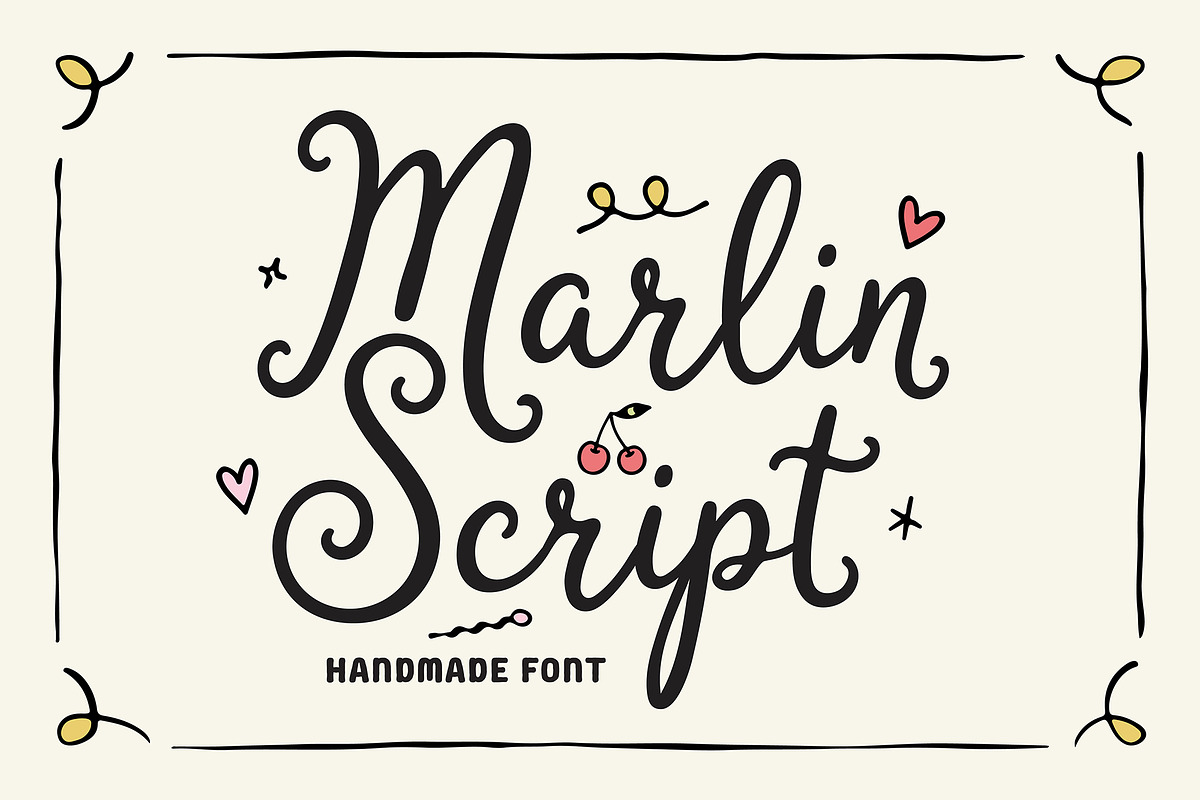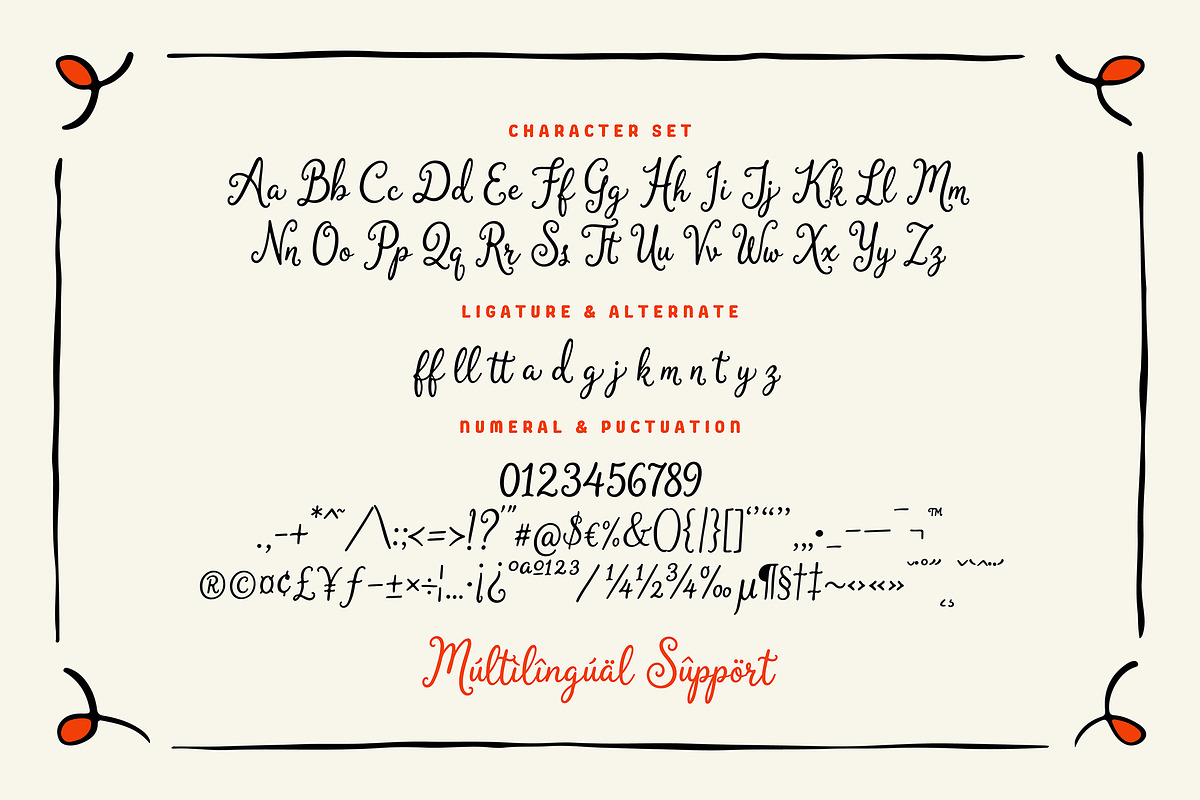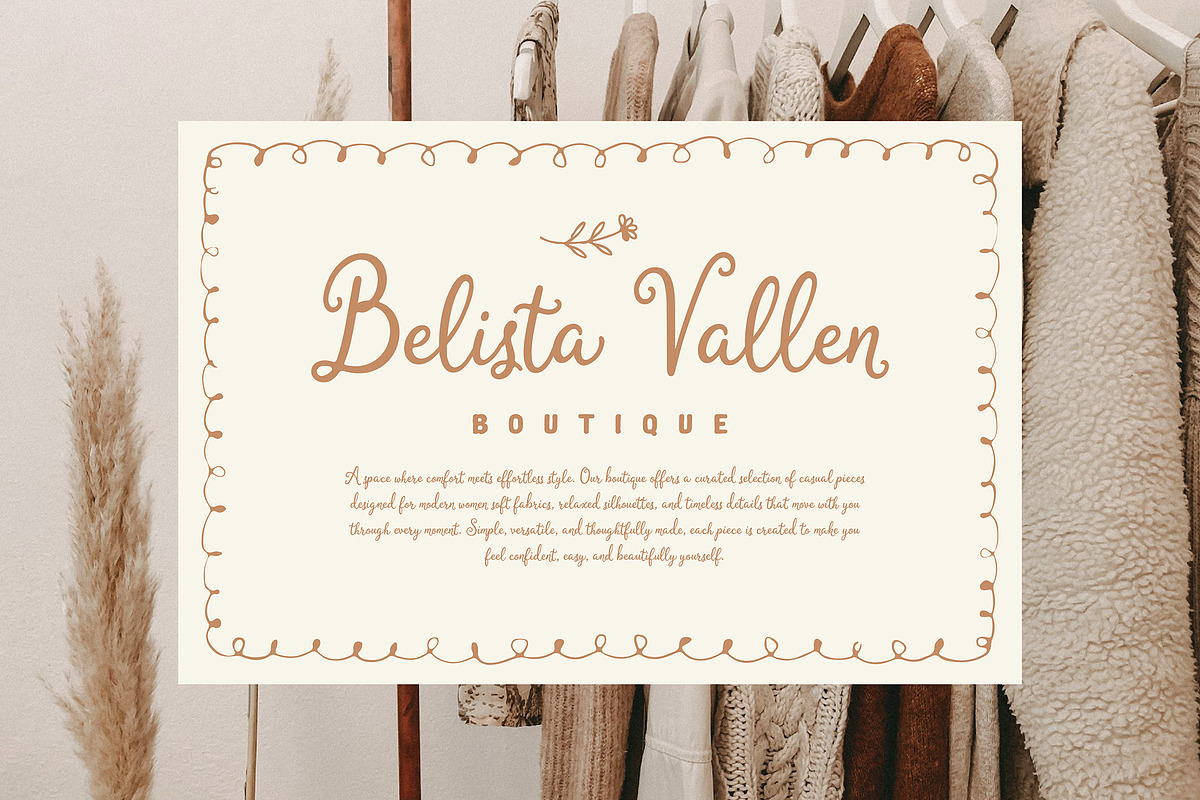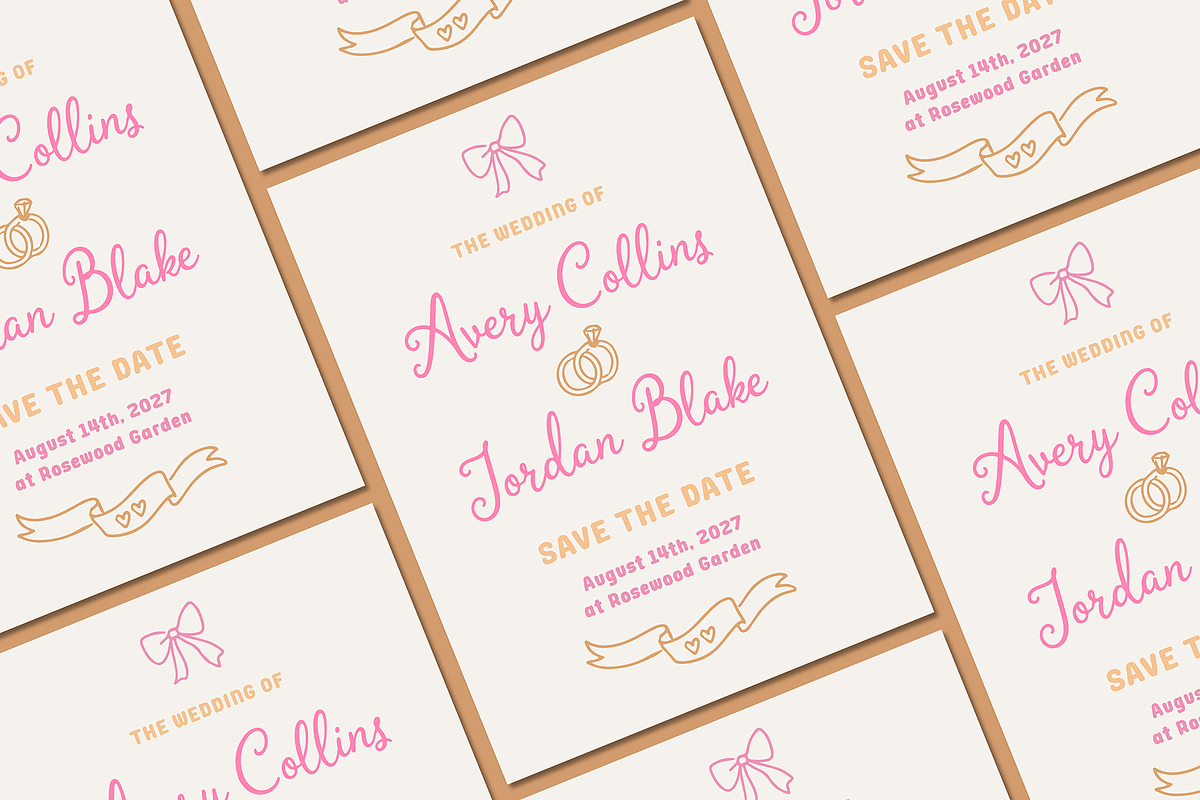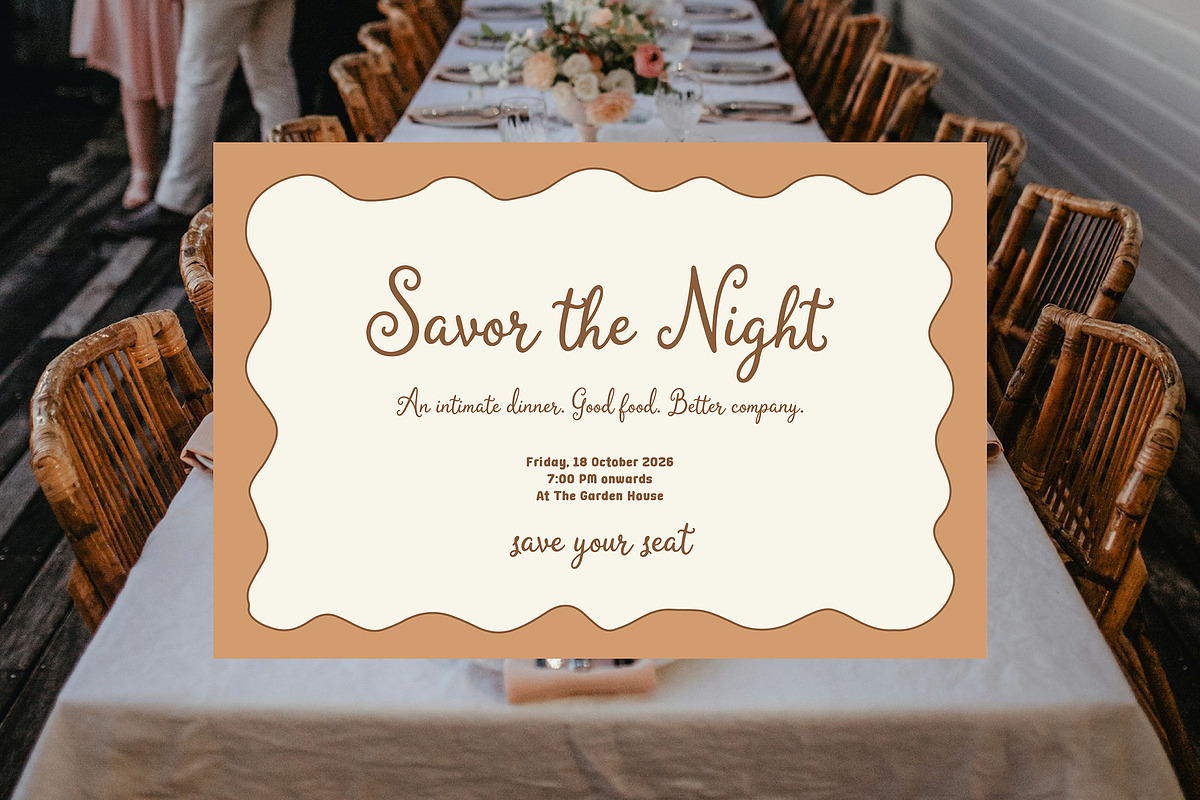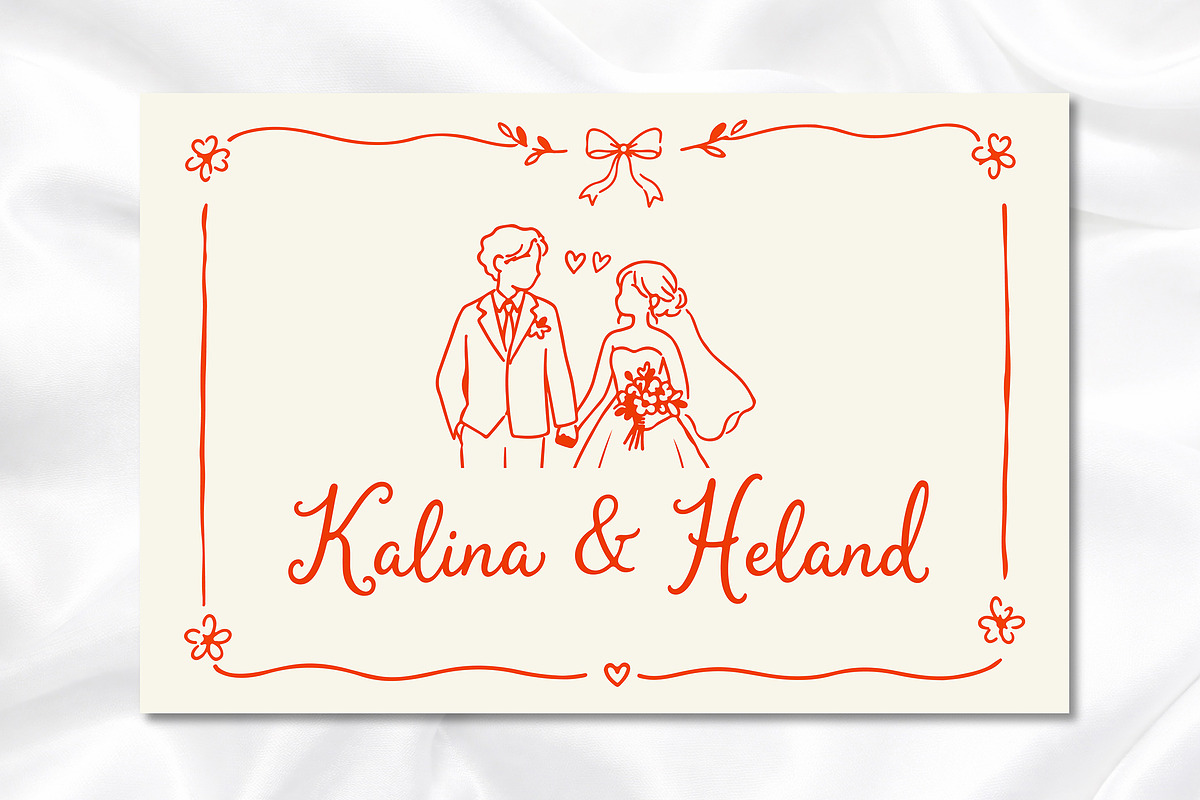
Marlin Script – Handmade Script Font
Marlin Script is a charming handmade font that brings a joyful and friendly personality to your designs. With its smooth flowing strokes, bouncy letterforms, and whimsical details, this font captures the essence of casual handwritten notes with a touch of sweetness. Designed to feel warm and approachable, Marlin Script features expressive curves and playful alternates that add life and movement to every word. The subtle imperfections and natural rhythm make it perfect for projects that need a personal, handcrafted feel. From cute branding and packaging to social media graphics, invitations, and children-themed designs, Marlin Script delivers a fun and heartwarming visual style. Its ligatures and alternate characters provide flexibility, allowing you to create more dynamic and unique typography.
- Ligatures & Stylistic Alternates
Marlin Script is made to add a touch of happiness, creativity, and handmade charm to every design.